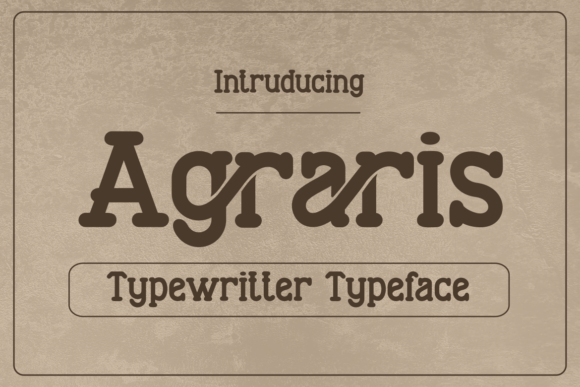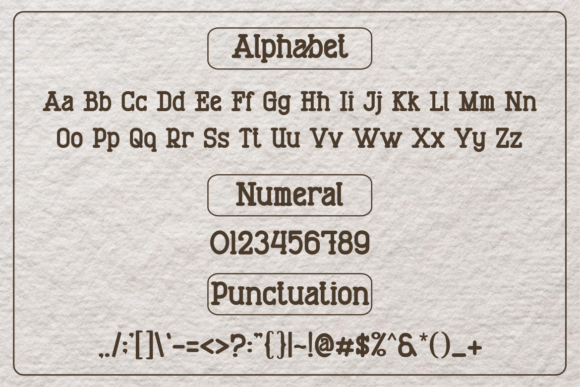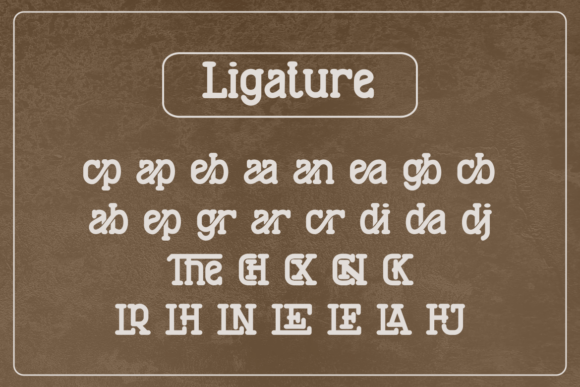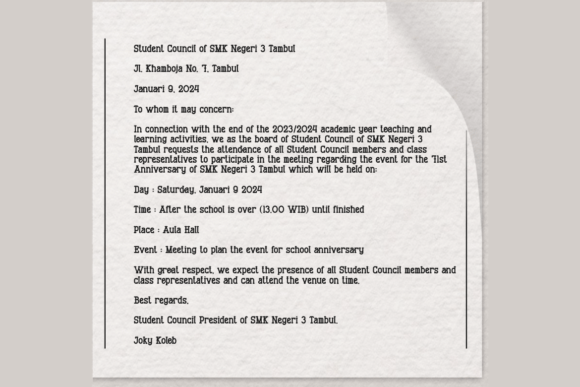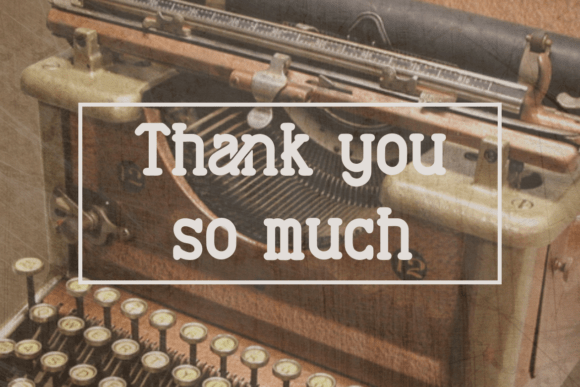
A Timeless Typewriter Revival
As a designer, there’s something special about stumbling upon an old typewriter in a thrift store or antique shop. The tactile feel of the keys, the sound of the clacking mechanism, and the worn, nostalgic charm of the machine all combine to spark a creative moment. It’s as if the past comes alive, inspiring us to create something new and meaningful.
Enter Agraris Font, a typewriter-inspired font that captures the essence of those classic machines. With its bold, slab-serif letterforms and rustic details, Agraris adds a touch of vintage charm to any design. Whether you’re looking to evoke a retro aesthetic or a handcrafted feel, this font is perfect for book covers, editorial layouts, branding, and packaging.
For designers, Agraris Font offers a unique value proposition: it’s a font that’s both nostalgic and modern, usable and characterful. Its versatility makes it an invaluable addition to any design toolkit, allowing you to add a personal touch to your work and stand out in a crowded creative landscape.
Agraris Font Key Features
- Unique Characteristics: Agraris Font features a unique blend of modern and rustic elements, with subtle texture and distressed effects that give it a distinct, earthy feel.
Agraris Font Review
I’ve had the chance to work with the Agraris Font, and I must say it’s a mixed bag. ✨ One thing that stands out is its unique blend of rustic and modern elements. The font’s design is perfect for creating a sense of warmth and approachability, making it ideal for projects that require a down-to-earth feel.
- ✨ Great for titles and headings due to its bold, yet elegant appearance
- ✨ Can add a touch of sophistication to digital and print materials
- ✨ Offers a high level of flexibility in terms of font sizes and styles
However, ⚠️ there are some limitations to consider. The Agraris Font can feel a bit cluttered at smaller font sizes, which may make it difficult to read in certain situations. Additionally, the font’s unique design may not be suitable for projects that require a more minimalist or sleek aesthetic.
Overall, I’d give the Agraris Font 3.5 out of 5 stars. While it’s not perfect, it’s a solid choice for designers looking to add a touch of personality to their projects. With a bit of tweaking and experimentation, it can be a valuable addition to any design toolbox.
Tips for Getting the Most Out of Agraris Font
Experiment with different font sizes and styles to create visual interest and emphasis. Use Agraris Font in combination with other fonts to create a unique and cohesive design. Consider using Agraris Font for headings and subheadings to create a clear hierarchy of information.
Agraris Font is suitable for a variety of design projects, including: brochure design, business card design, logo design, and website design. It’s also a great choice for creating a rustic or vintage-inspired look.